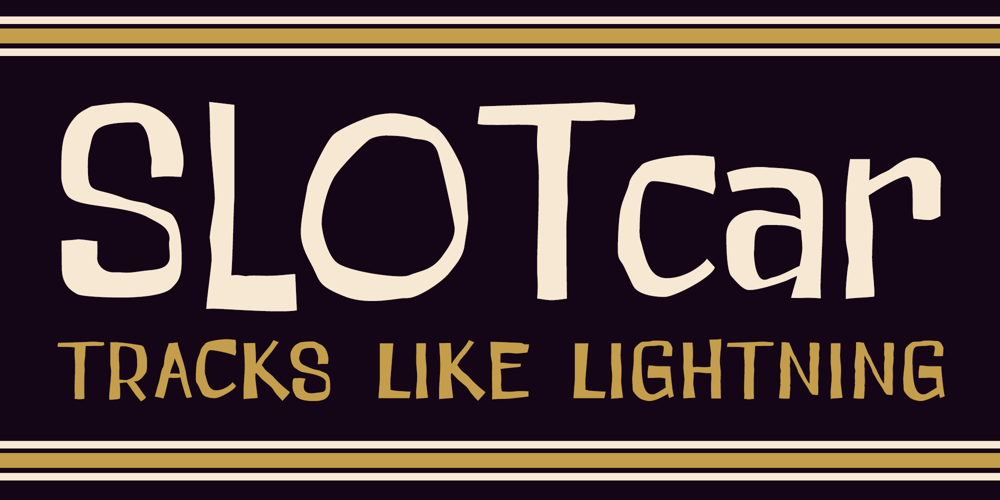
Slot Car Font Family was designed by Brian J. Bonislawsky, Dave Cohen and published by One Eyed Squid. Slot Car contains 1 styles and family package options. This rowdy, handdrawn retro font really tracks! Slot Car will sling you around the curve at lightning speed and propel your design project across the finish line in record time! Feel the electricity with Slot Car!(Slot Car contains an extended Latin character set with added Vietnamese support.)